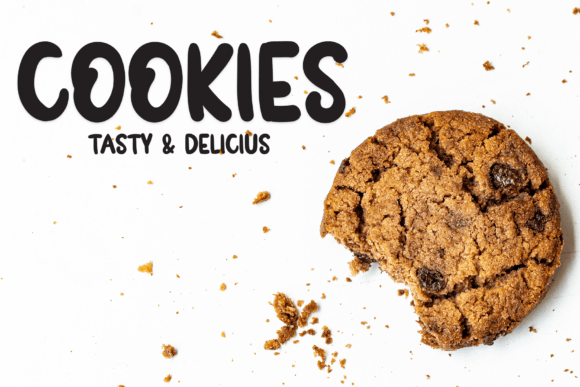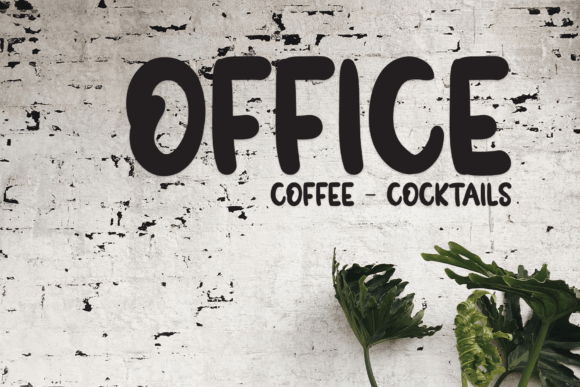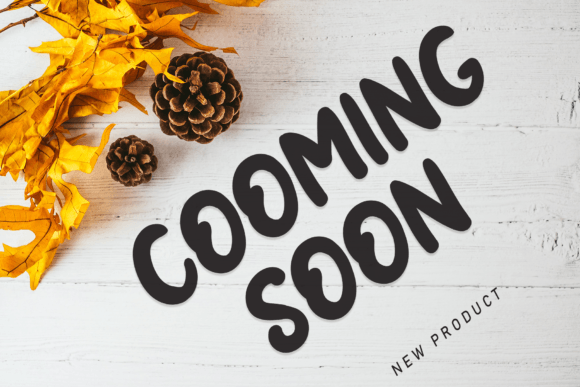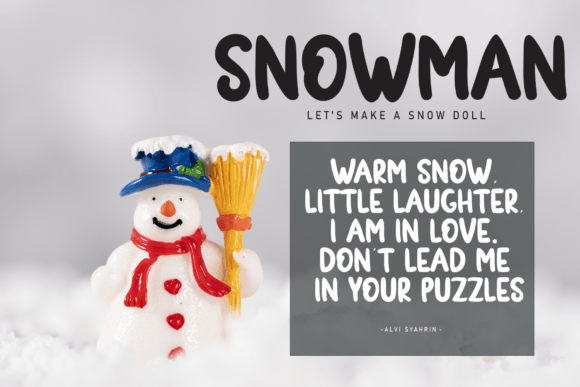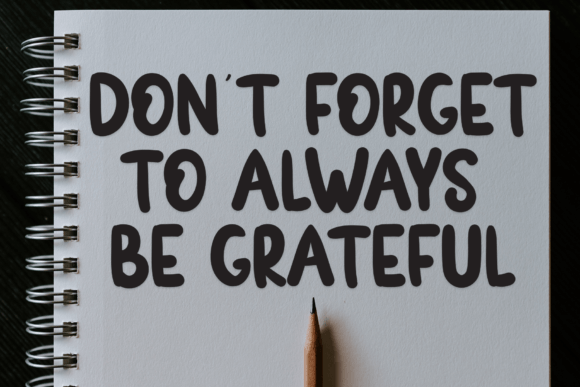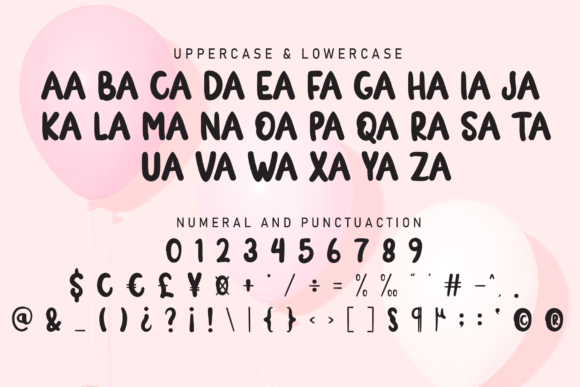
Introducing Ballon Font: The Sweet and Friendly Handwritten Font for Your Creative Projects
Are you looking for a font that can add a touch of sweetness and friendliness to your designs? Look no further than Ballon Font! This beautiful handwritten font is perfect for creating wedding invitations, cards, and other designs that require a fun and playful touch. In this article, we’ll take a closer look at Ballon Font, its features, and how you can use it to elevate your creative projects.
What is Ballon Font?
Ballon Font is a sweet and friendly handwritten font that’s perfect for adding a personal touch to your designs. Its fresh and neat style makes it ideal for a wide range of creative projects, from wedding invitations and cards to posters, flyers, and more. Whether you’re a designer, crafter, or DIY enthusiast, Ballon Font is a great addition to your font collection.
Key Features of Ballon Font
- Handwritten style: Ballon Font has a beautiful handwritten style that’s perfect for adding a personal touch to your designs.
- Sweet and friendly: The font has a sweet and friendly feel that’s perfect for creating designs that require a playful touch.
- Fresh and neat: Ballon Font is clean and easy to read, making it perfect for body text and headings.
- Versatile: The font is versatile and can be used for a wide range of creative projects, from wedding invitations to posters and flyers.
Use Cases for Ballon Font
Ballon Font is perfect for a wide range of creative projects, including:
- Wedding invitations: Add a touch of sweetness and romance to your wedding invitations with Ballon Font.
- Cards: Create beautiful and personalized cards for birthdays, anniversaries, and other special occasions.
- Posters and flyers: Use Ballon Font to create eye-catching posters and flyers for events, promotions, and more.
- Social media graphics: Add a playful touch to your social media graphics with Ballon Font.
Tips for Using Ballon Font
Here are some tips for using Ballon Font in your creative projects:
- Pair with other fonts: Pair Ballon Font with other fonts to create a unique and interesting contrast.
- Use for headings and body text: Use Ballon Font for both headings and body text to create a cohesive look.
- Keep it simple: Keep your design simple and clean to let Ballon Font shine.
Ballon Font is a beautiful and versatile handwritten font that’s perfect for adding a touch of sweetness and friendliness to your designs. With its fresh and neat style, it’s ideal for a wide range of creative projects, from wedding invitations to posters and flyers. Whether you’re a designer, crafter, or DIY enthusiast, Ballon Font is a great addition to your font collection. So why not give it a try and see how it can elevate your creative projects?